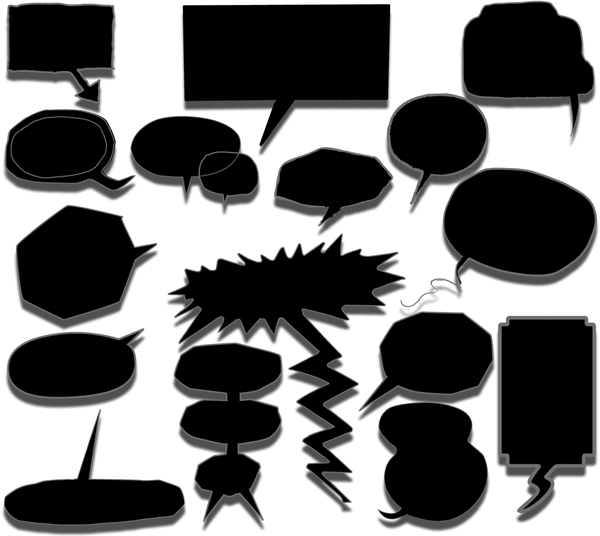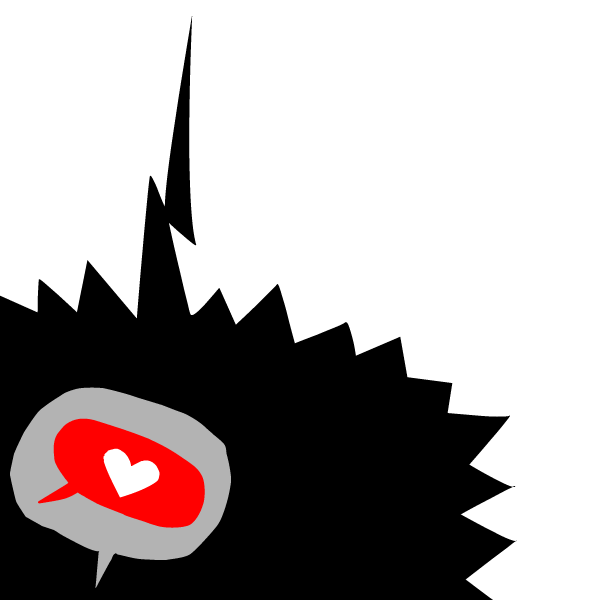
Speech Bubbles Font
“How is something said? Loudly? With a tint of shyness? Does a rather small message take up a lot of space? The font Speech Bubbles gives the typographer a tool to make text speak – to give words conversational dynamics and to emphasize visually the sound of the message. The font includes a total of seventy outlines and seventy bubble backgrounds selected from a survey of historic forms.
My work on the Speech Bubbles font began with historic research. My first resource was a close friend who is a successful German comic artist. I had previously worked with him to transform his lettering art into an OpenType font. This allowed his publishing house to easily translate cartoons from German to other languages without the need to use another font, like Helvetica rounded – which is used in Germany to letter Walt Disney Comics..
My friend showed me the most exciting, outstanding and graphically appealing speech bubbles from his library. I looked at early strips from Schulz (Peanuts), Bill Waterson (Calvin & Hobes), Hergé (TinTin), Franquin, as well as Walt Disney. The most inspiring was the early Krazy Kat and Ignatz (around 1915) from George Herriman. I also studied 1980’s classics Dave Gibbon’s Watchmen, Frank Miller’s Ronin and Alan Moore and David Lloyd’s V for Vandetta. Contemporary work was also a part of my research—likeLiniers from Macanudo and work of Ralf König.
With this overview in mind I began to work from scratch. I tried to distill the typical essence of each author’s or era’s speech bubbles style into my font. In the end I limited my work down to the seventy strongest images.
An important aspect of the design process was examining each artist’s speech bubble outlines. In some cases they are carefully inked, as in most of the 80’s work. In others, such as with Herriman, they are fast drawn with a rough impetus. The form can be dynamic and round (Schultz) with a variable stroke width, or straight inked with no form contrast (Hergé). Since most outlines also carry the character of the tool that they are made with, I chose to separate the outline from the speech bubble fill-in or background.
This technical decision offers interesting creative possibilities. For example, the font user can apply a slight offset from fill-in to outline, as it is typical to early comic strips, in which there are often print misalignments. Also, rather than work in the classic white background with black outline, one can work with colors. Many tonal outcomes are possible by contrasting the fill-in and outline color.
The Speech Bubbles font offers a dynamic and quick way to flavor information while conveying a message. How is something said? Loudly? With a tint of shyness? Does a rather small message take up a lot of space? The font’s extensive survey of historic comic designs in an assembly that is useful for both pure comic purposes or more complex typographic projects. Use Speech Bubbles to give your message the right impact in your poster, ad or composition.